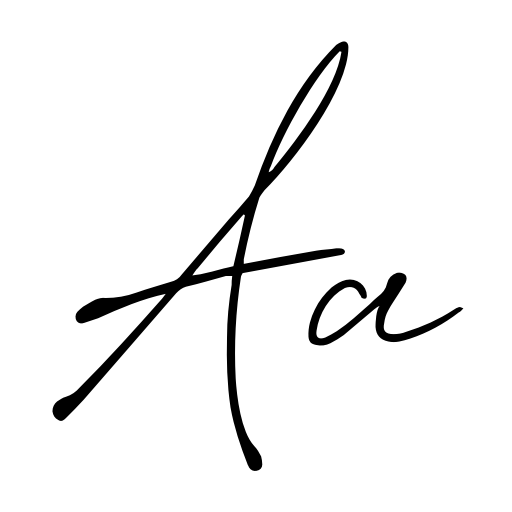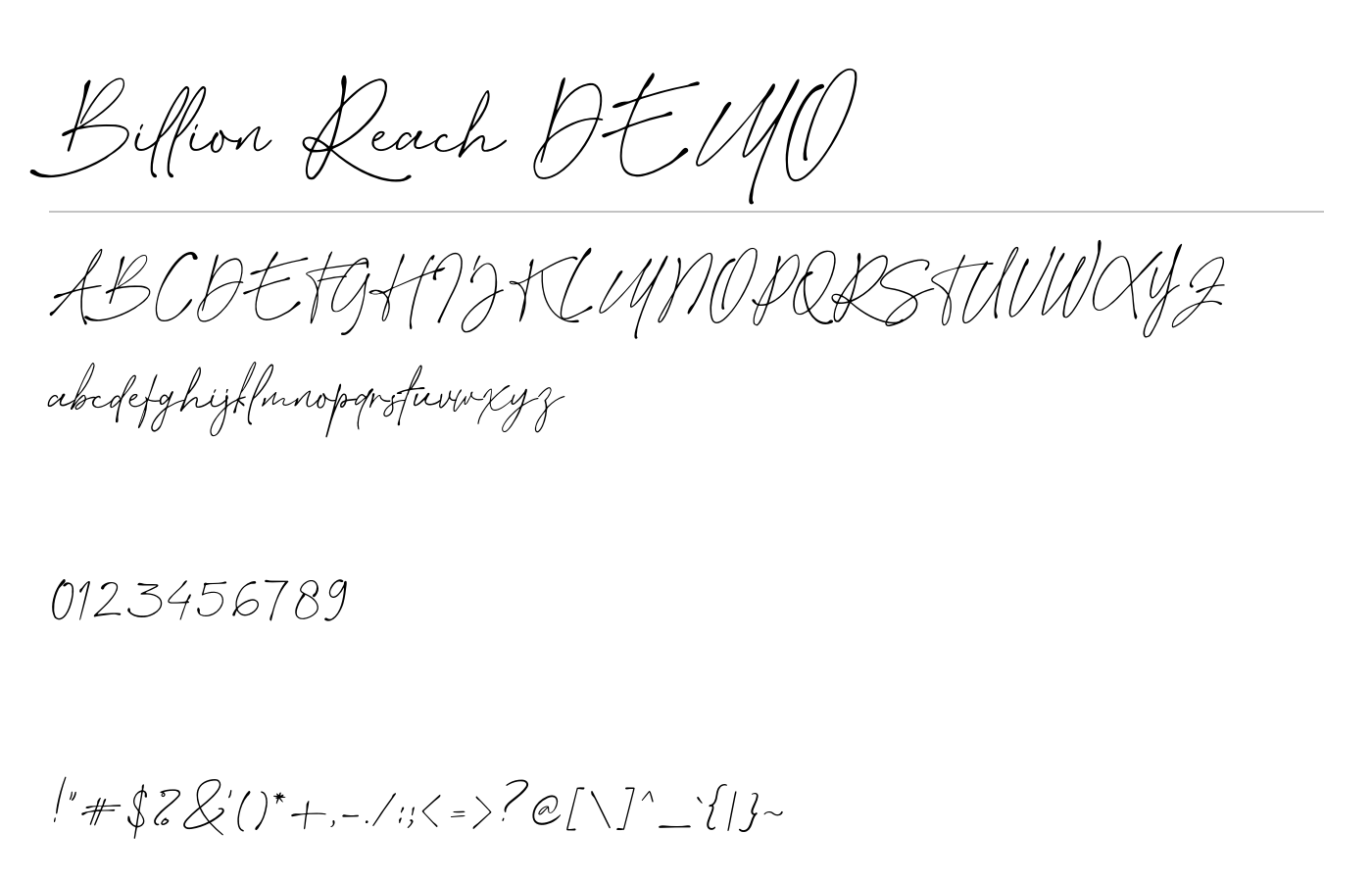
Billion Reach DEMO is a delicate, handwritten script font with a light weight and slender, flowing strokes that create an elegant and personal feel. Its tall, narrow letterforms and subtle variation in line thickness give it a modern yet natural look, perfect for adding a stylish, intimate touch to branding, invitations, and creative projects. This font works best in designs where a refined, artistic, and approachable mood is desired.
Billion Reach DEMO Font
About Billion Reach DEMO Font
| Font family | Billion Reach DEMO Font |